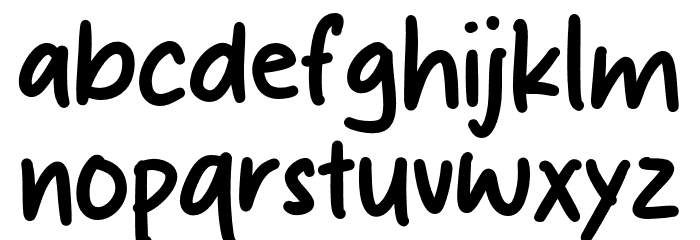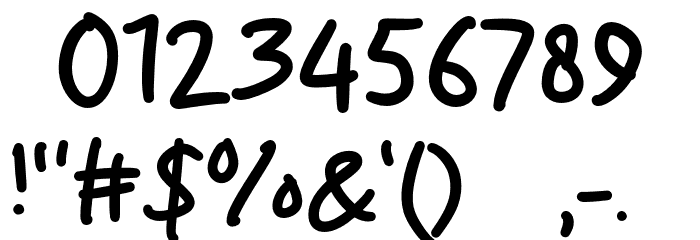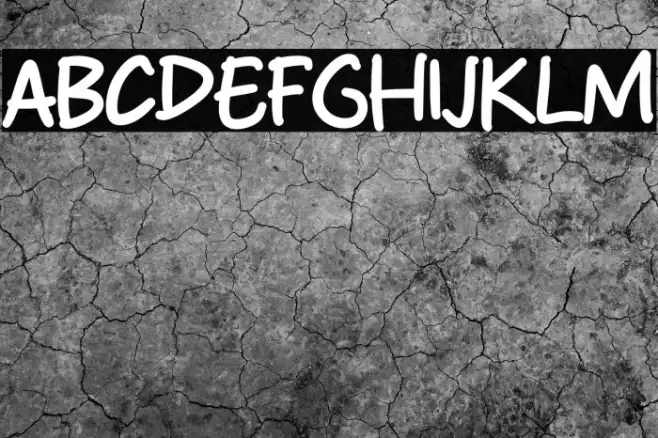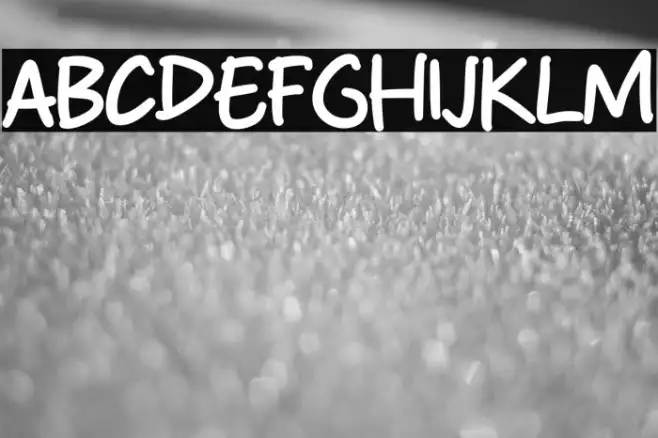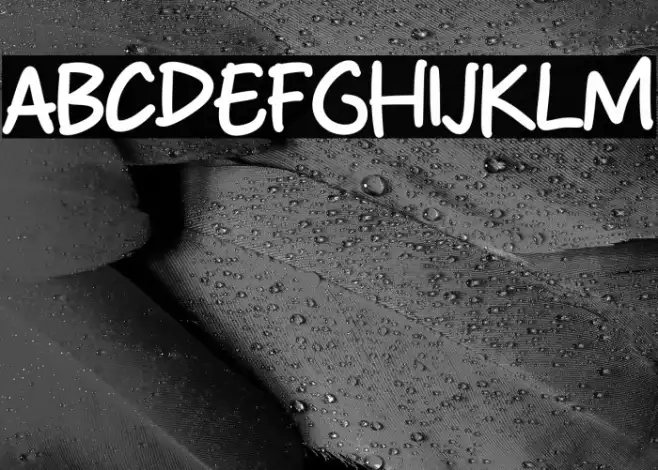
Enjoy Life Font
This font exudes a playful and casual handwritten style, characterized by its smooth, rounded strokes and slightly irregular letterforms. The letters are bold and have a consistent thickness, giving them a friendly and approachable appearance. The spacing between characters is relatively tight, which enhances the cohesive look of the text. The font includes a full set of uppercase and lowercase letters, numbers, and a variety of special characters, making it versatile for different uses. Its informal style makes it ideal for projects that aim to convey warmth and personality.
A playful, bold handwritten font with smooth, rounded strokes.
- Font: Enjoy Life
- Proposed Projects: Perfect for greeting cards, children's books, casual branding, and social media graphics.
- Category: Handwritten
- Character Spacing: Tight
- Overall Style: Casual
- Use Case: Logos, Headlines, Informal Text